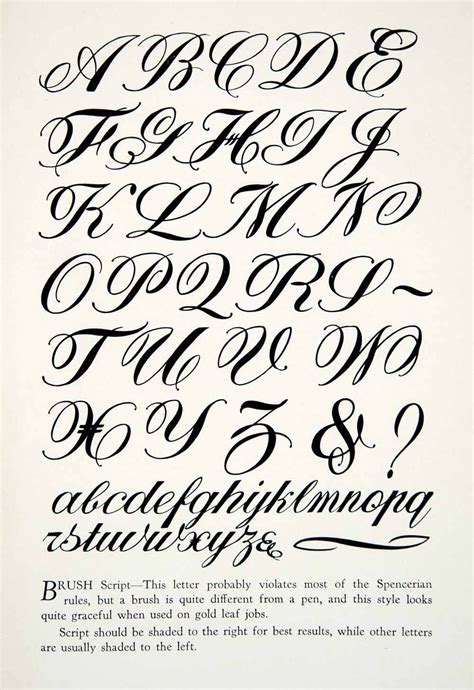
Copperplate script font viewed 6381 times. Copperplate script, copperplate gothic std 33 bc. The font is classified as regular fonts. Copperplate script by castletype | category: One of the more elegant script fonts available, this design is based on calligraphic handwriting called copperplate because of the copper plates that it was etched into for reproduction.